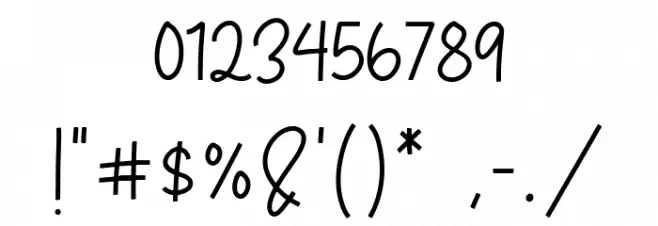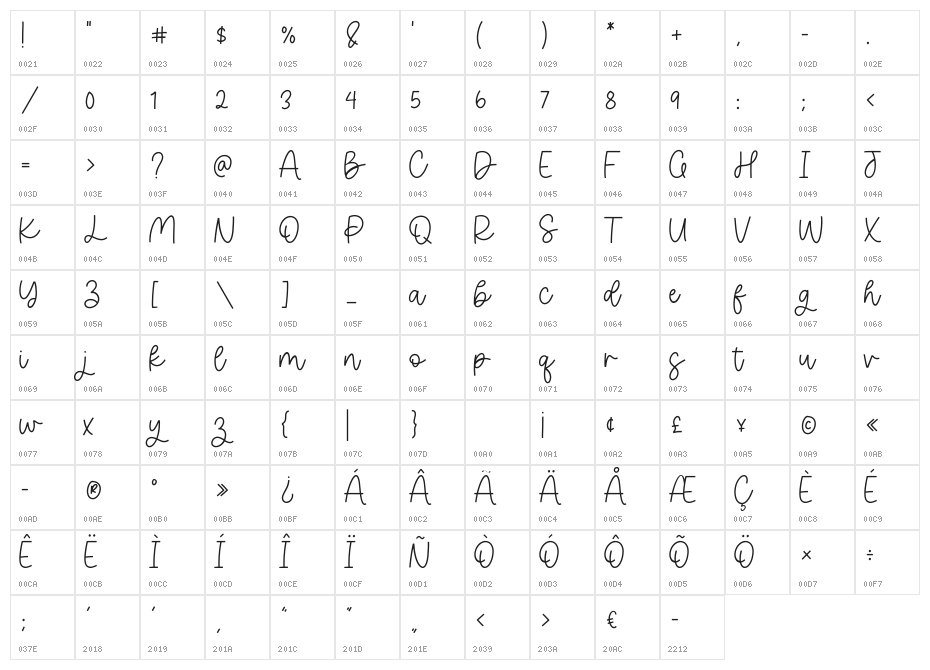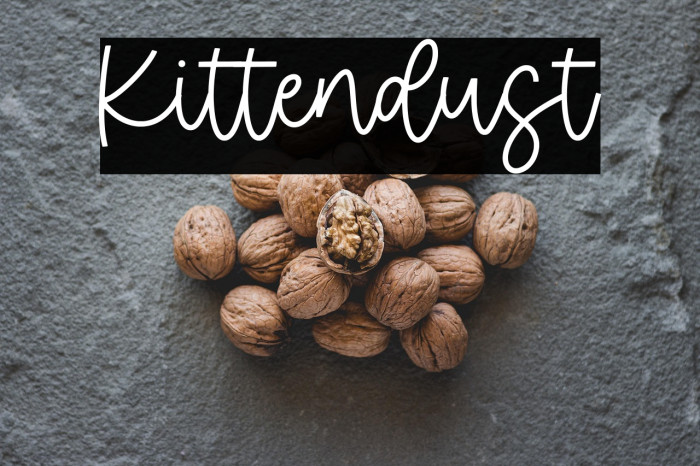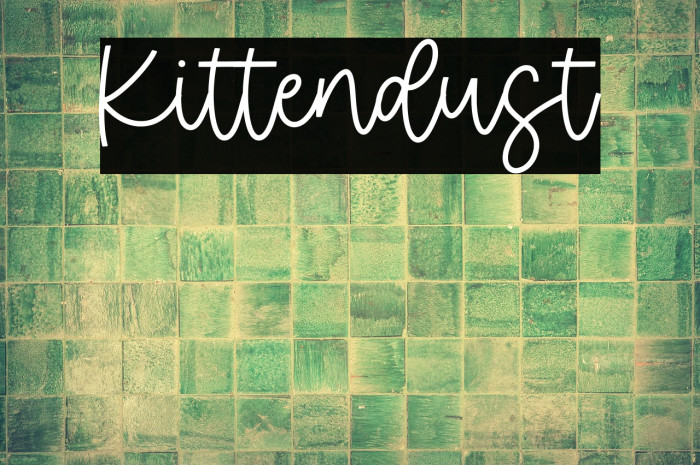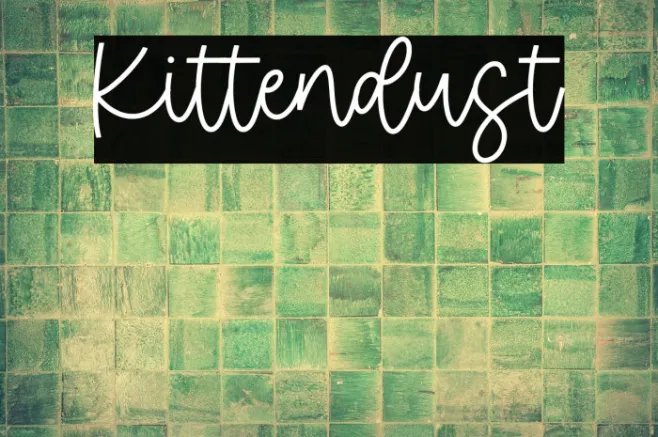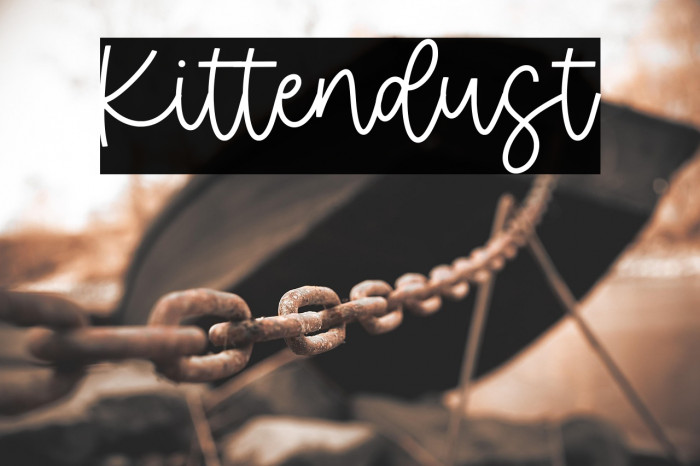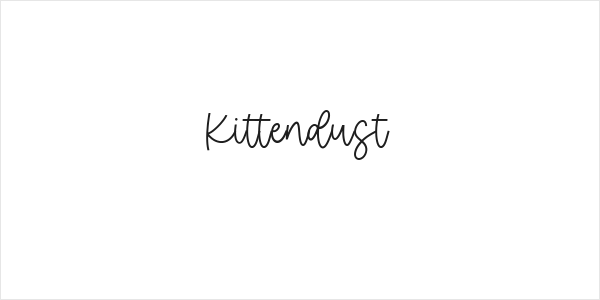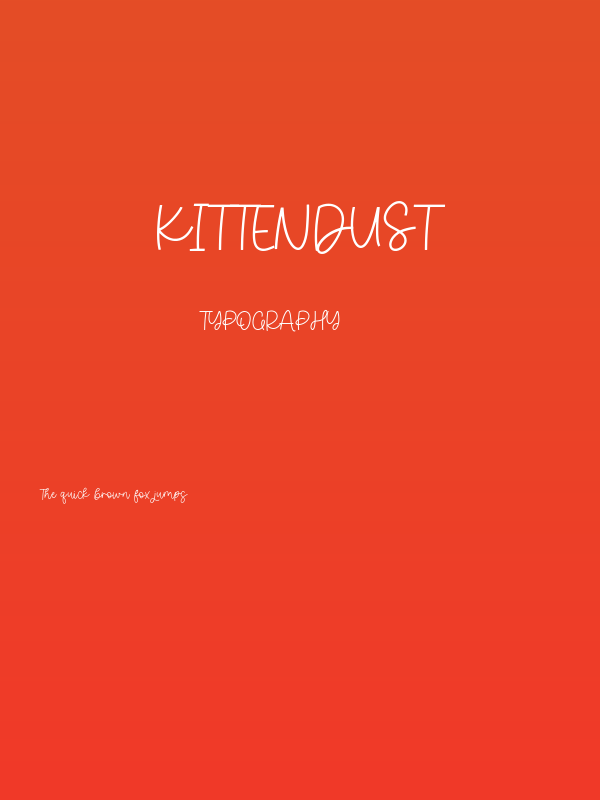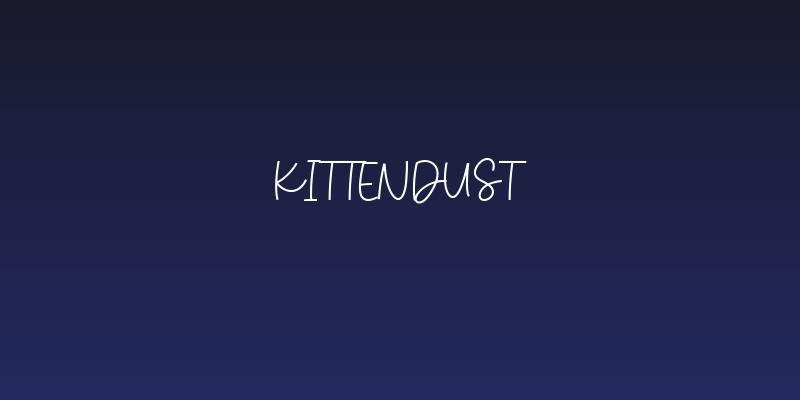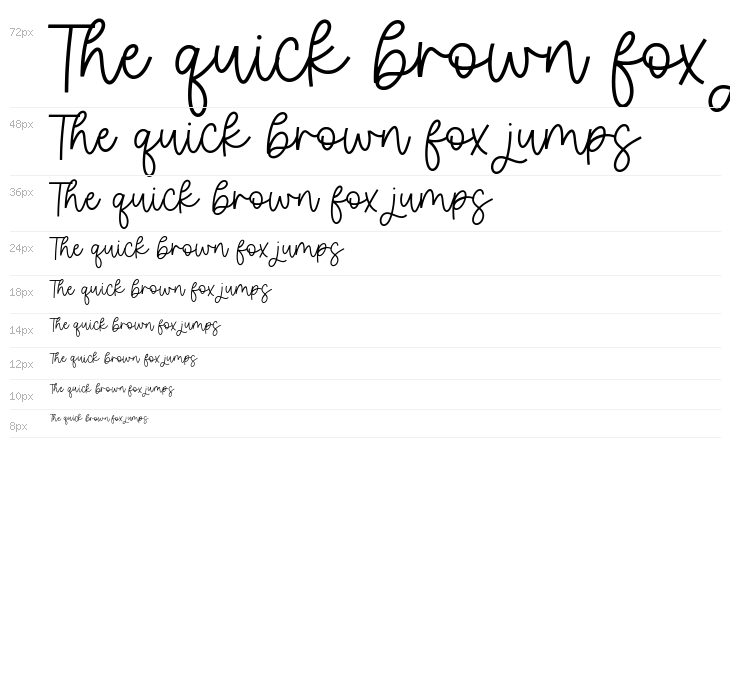
Kittendust Font
Kittendust Description
This font features a playful and whimsical handwritten style, characterized by its smooth, flowing lines and a casual, informal appearance. The uppercase letters maintain a consistent height, while the lowercase letters exhibit a charming, slightly irregular baseline that adds to its hand-drawn charm. The numerals and special characters are crafted with the same fluidity, ensuring a cohesive look across all text. The strokes are uniform in thickness, providing a clean and approachable aesthetic. This font's lively and friendly nature makes it ideal for projects that require a personal touch.
| Overall Style | Casual |
| Use Case | Logos, Invitations, Social Media |
| Proposed Projects | Ideal for greeting cards, invitations, personal branding, and social media graphics. |